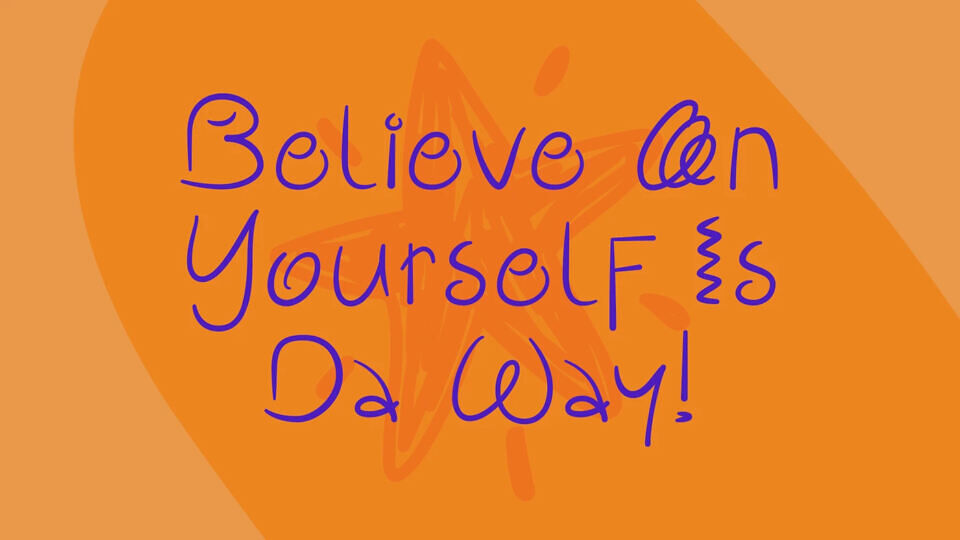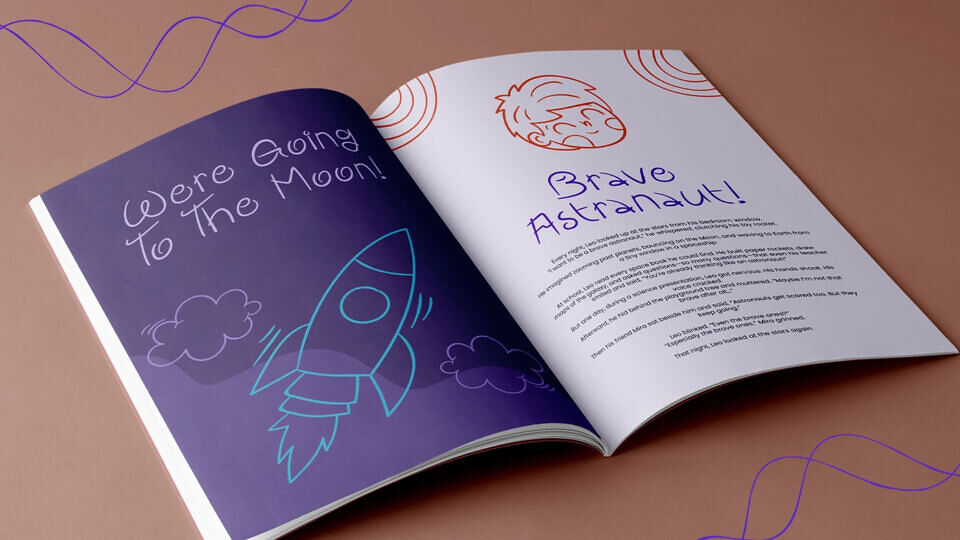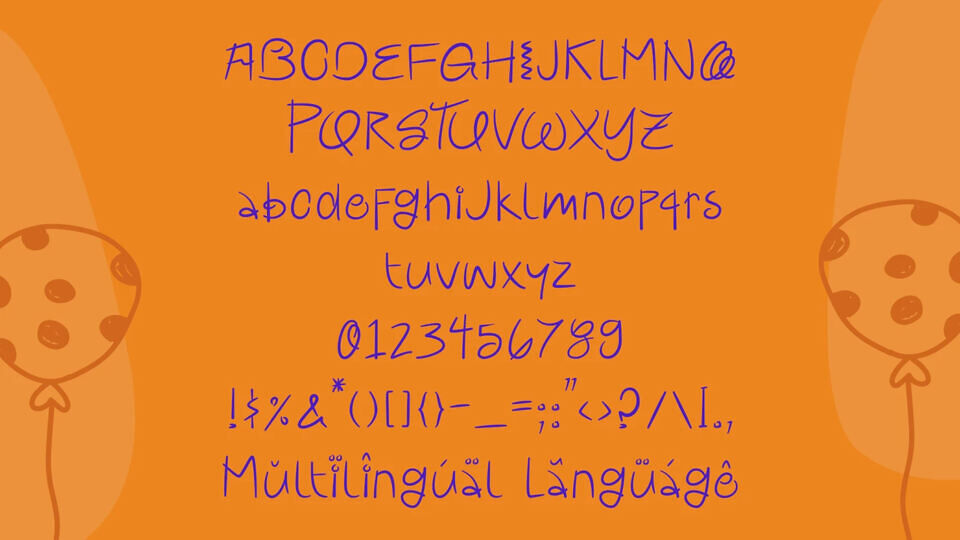
Add a splash of fun to your next project with Baito, a cheerful and playful typeface designed to bring smiles! Perfectly suited for children’s content, cute branding, colorful illustrations, and anything that needs a touch of charm.
Baito empowers your creativity, whether you’re crafting birthday invitations, designing toy brands, or building whimsical websites.